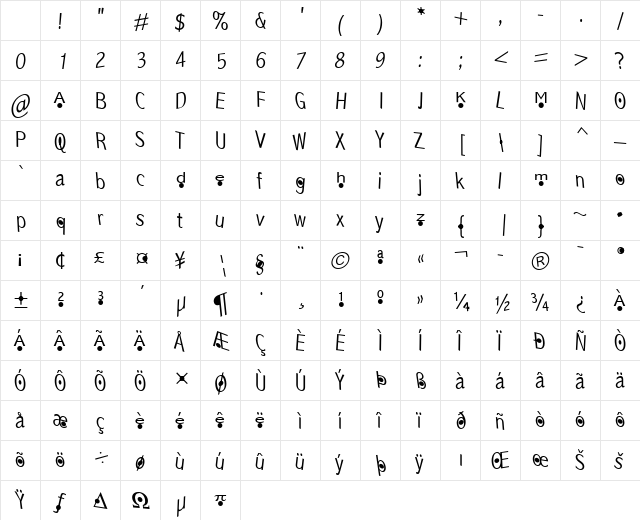
Crazy Circles is a composed and adaptable typeface that performs quietly and consistently across a wide range of design contexts. The slanted form adds forward momentum and visual energy. Its slender proportions lend an understated elegance to any composition.
Pro Tip: Use Crazy Circles for emphasis, pull quotes, and subheadings where its slanted energy can add rhythm to the layout.